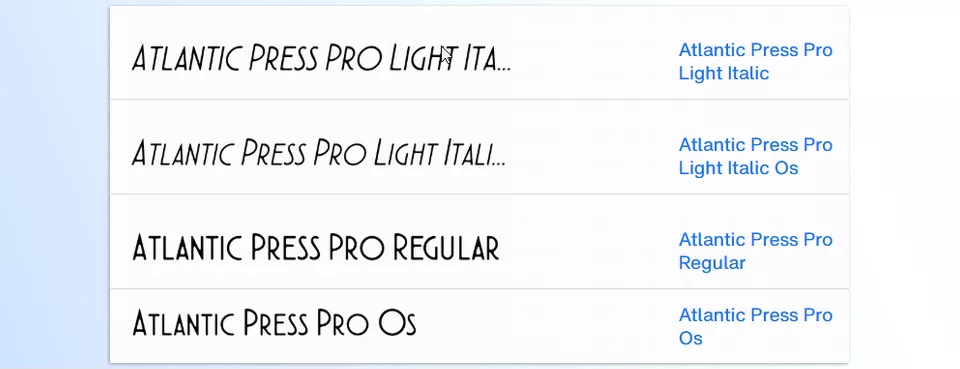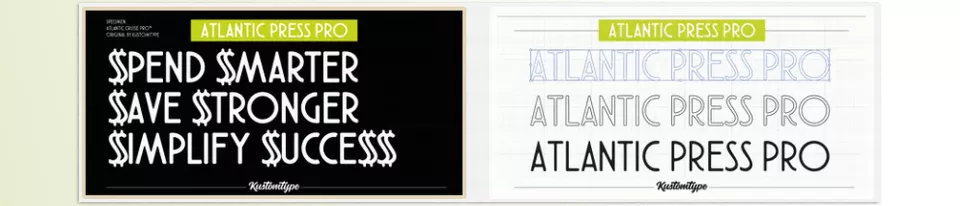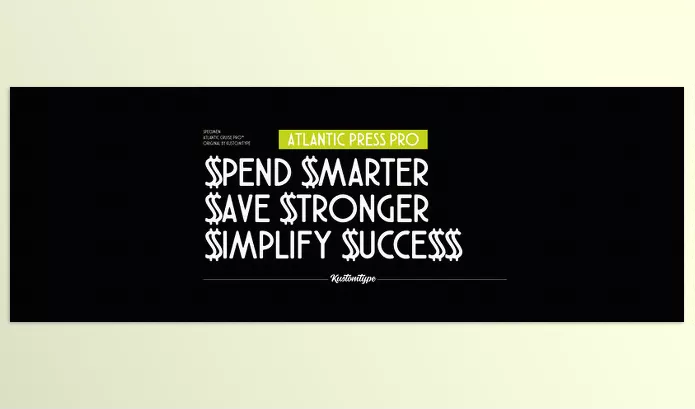
Atlantic Press Pro Font Family brings a new journey to the elegance of vintage letterpress typography. Heated to stimulate the mid-century mystique of classical font printing techniques, its warm, ink-bleed attributes features add softness and authenticity to your creative work.
Kustomtype – Atlantic Press Pro Font Family Features
• Features 10 weights ranging from Light to Heavy, including italics for added flexibility.
• Ideal for branding, editorial design, luxury packaging, and contemporary graphics.
• Forged by subtle ink-bleed design principles, enhancing authenticity by blurring the lines of precision and craft.
• Incorporates vintage inspiration while simultaneously catering to modern global design needs, making it suitable for diverse design-focused projects.
Image 1: Bring the timeless allure of letterpress typography into your designs with a typeface that captures the warmth of classic print techniques.
Atlantic Press Pro Font Family - Bring the timeless allure of letterpress typography into your designs with a typeface that captures the warmth of classic print techniques.
Image 2: Elevate your projects with a refined font that blends vintage charm and modern versatility, perfect for branding and luxury design.
Atlantic Press Pro Font Family - Elevate your projects with a refined font that blends vintage charm and modern versatility, perfect for branding and luxury design.